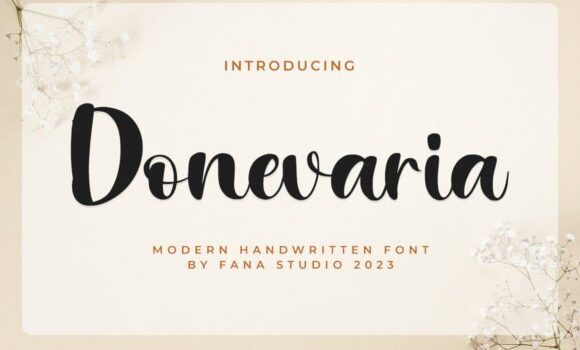
donevaria
Donevaria Font - Featured Image
Donevaria Font – Free Download Introduction to Donevaria Font The Donevaria Script offers gorgeous typographic perfect for many different projects such as logos & branding, invitations, stationery, wedding designs, social media posts, advertisements, product packaging, product designs, labels, photography, watermarks,